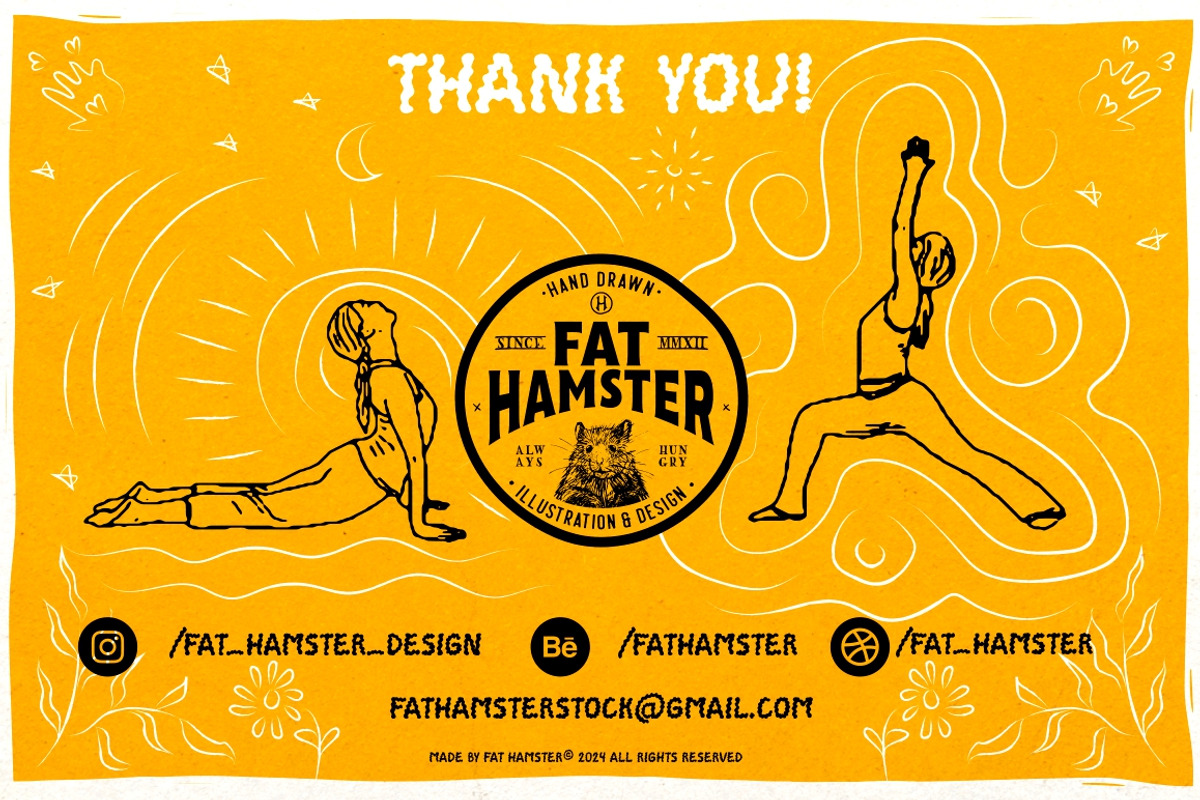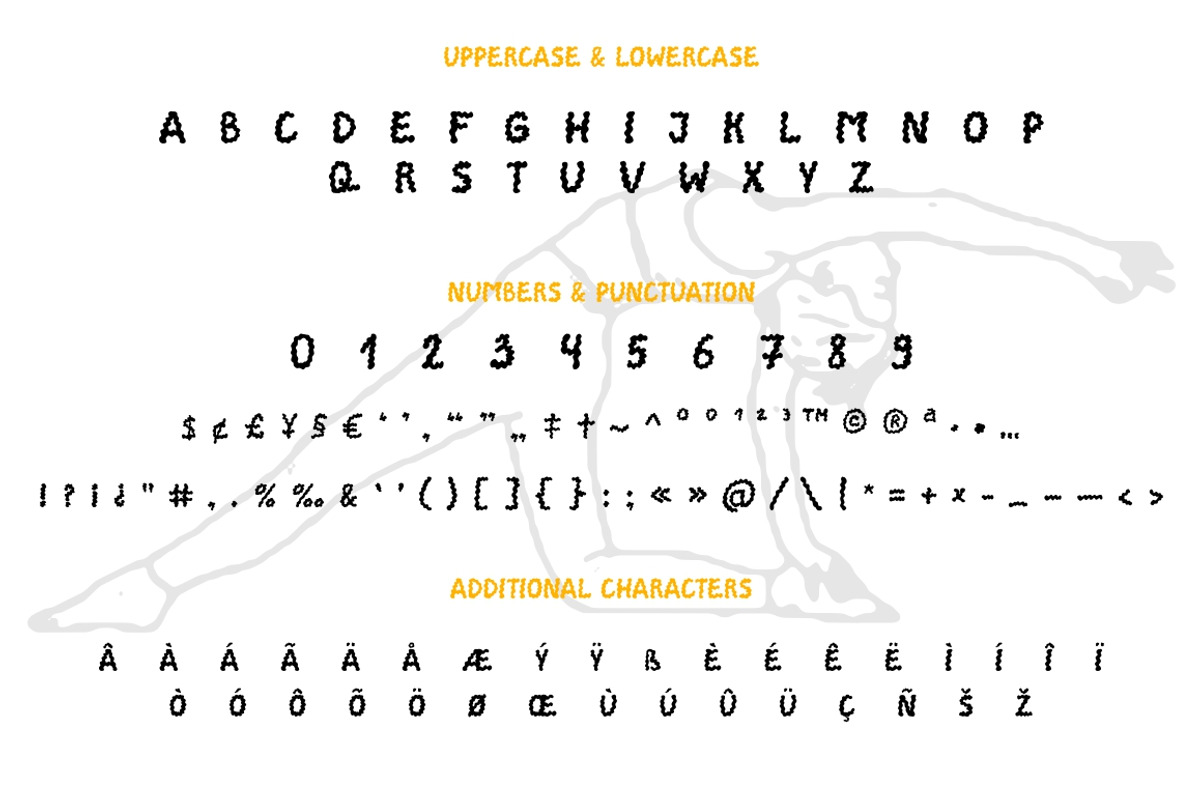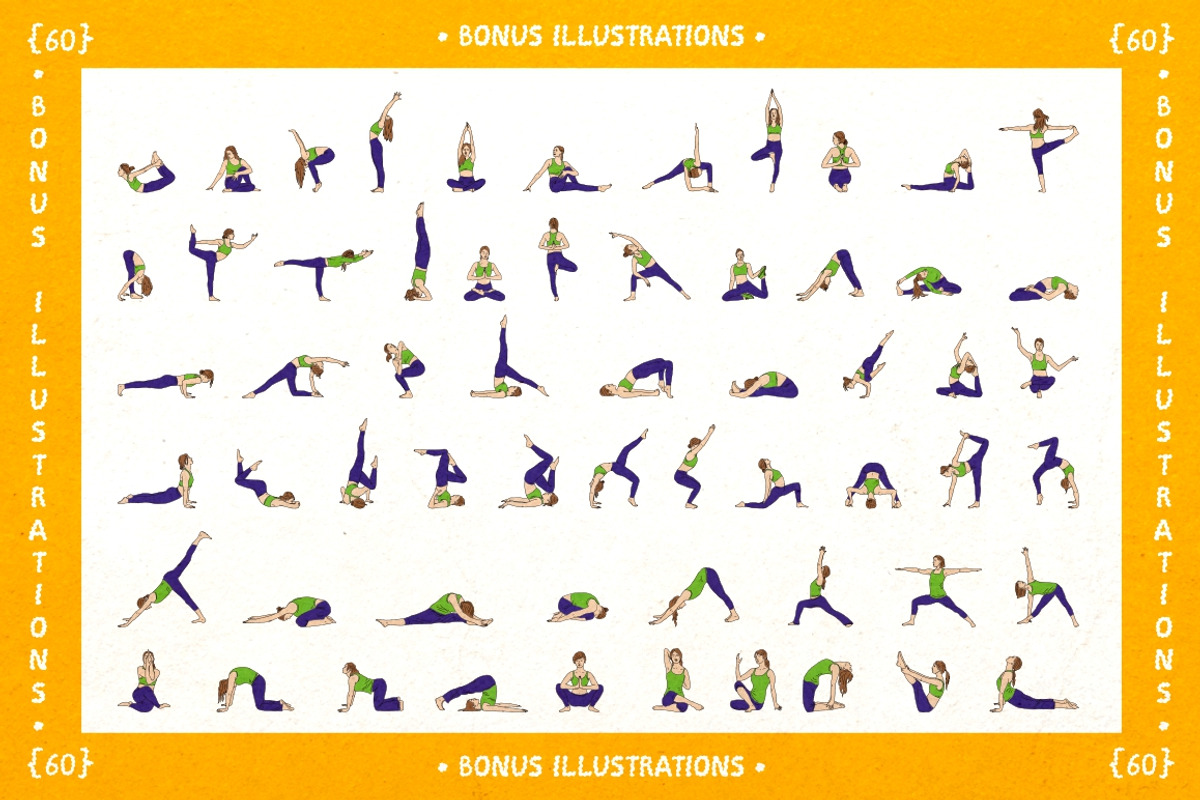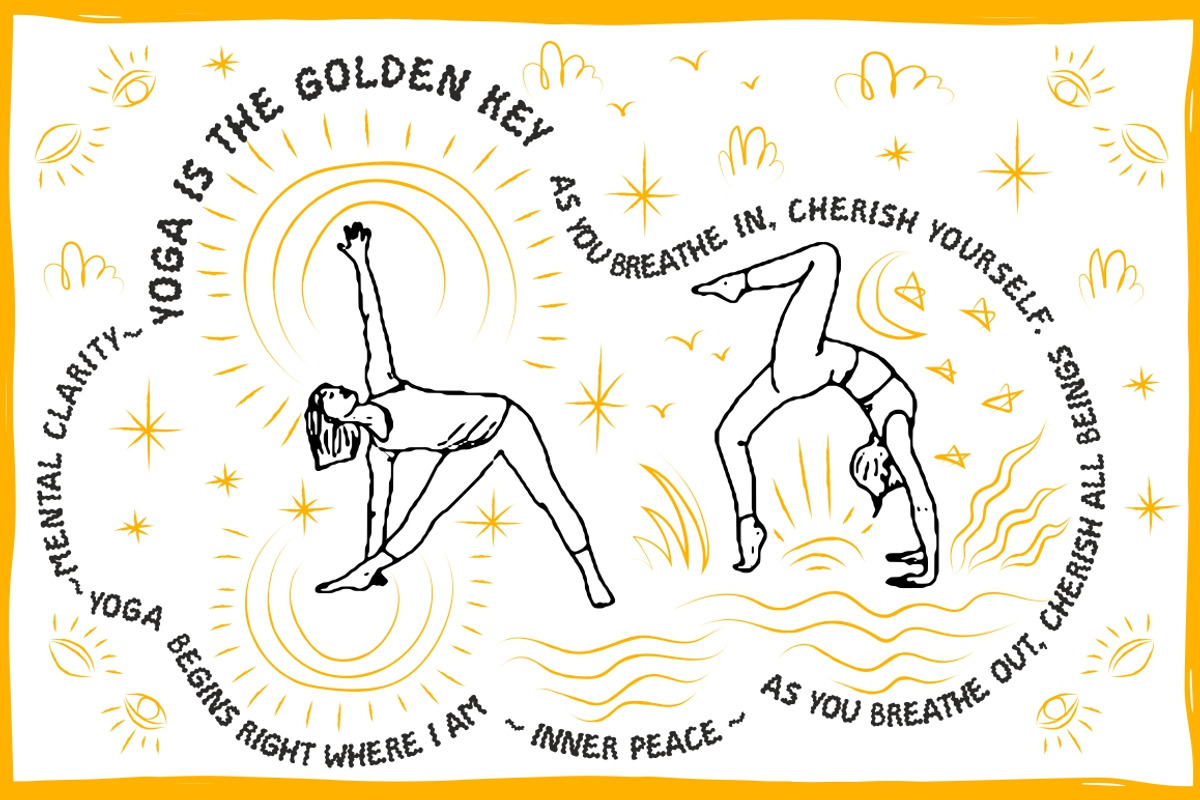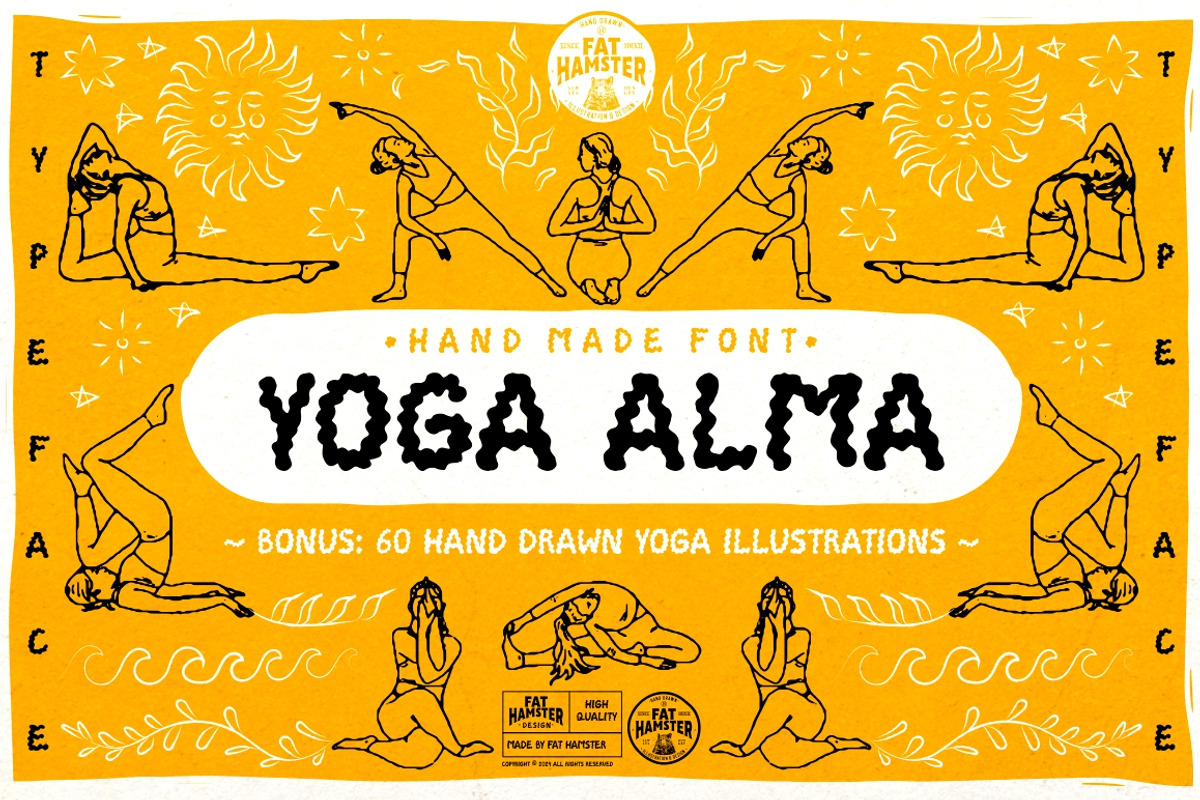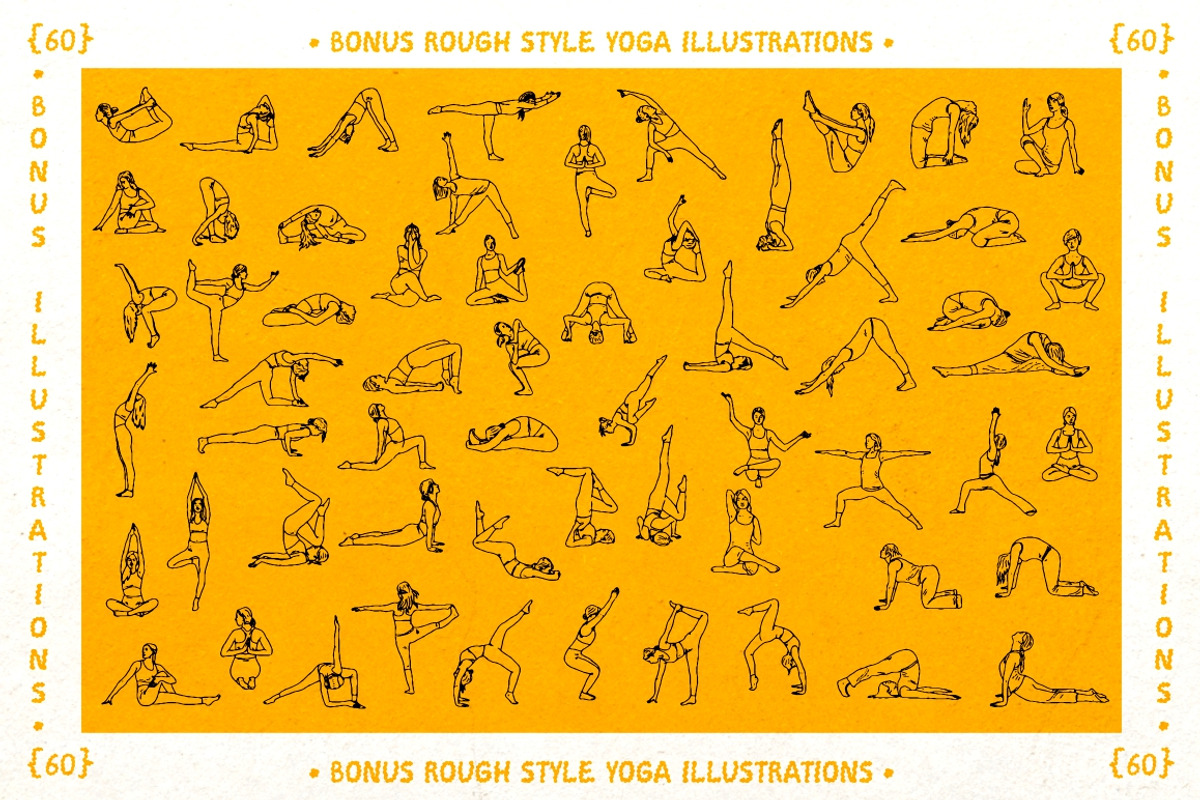
Yoga Alma font + bonus illustrations
Yoga Alma font + 60 yoga poses illustrations
Hand-crafted "Yoga Alma" font is flowing, expressive, unique, and playful that embodies the essence of yoga. This wavy font is designed to resemble the flowing lines and curves of the human body, with each letterform inspired by the movements and shapes of various yoga poses.
60 Bonus Yoga Poses Illustrations: to complement the "Yoga Alma" font, we've created a set of 60 bonus illustrations that showcase various yoga poses. Each illustration is carefully crafted to highlight the unique shapes, movements, and emotions associated with each pose. There you can find 60 yoga poses in rough style and 60 yoga asanas in colors.
This type is suitable for making clothing brand, logo and brand design, quotes, website and social media design, beautiful and vibrant lifestyle images.